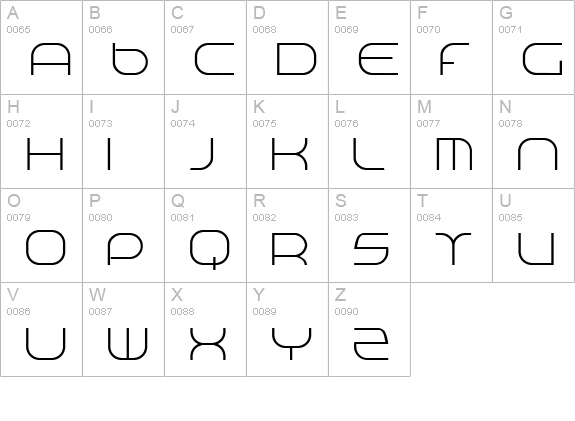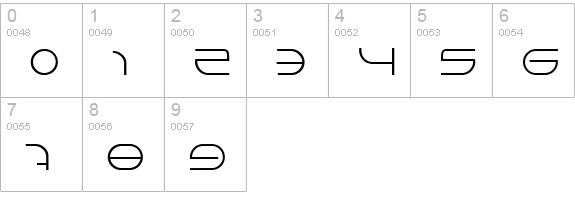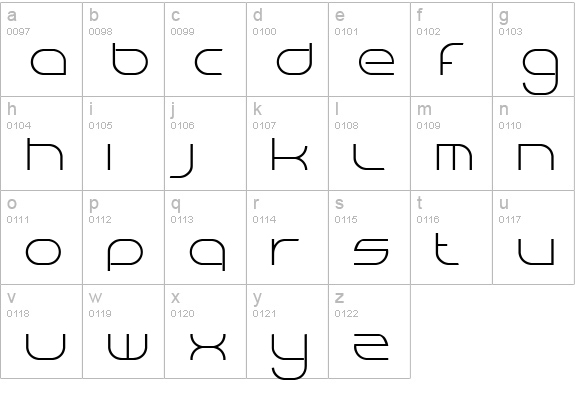
BN Niv 5000 Font Details
Introducing BN Niv 5000 font, a modern and sleek typeface that is perfect for various design projects. This versatile font features clean lines and a sophisticated aesthetic that will elevate any design it is used in. With its unique style and readability, BN Niv 5000 font is suitable for branding, advertising, packaging, and more. What sets BN Niv 5000 font apart is that it is available for free download at FontsMarket.com. This means you can easily access this high-quality font without any cost, making it a valuable addition to your font collection. Whether you are a designer looking for a new font to add to your repertoire or a business owner in need of a fresh look for your branding, BN Niv 5000 font is a fantastic choice that won't break the bank. Don't miss out on the opportunity to enhance your designs with BN Niv 5000 font - download it for free today at FontsMarket.com and see the difference it can make in your projects!